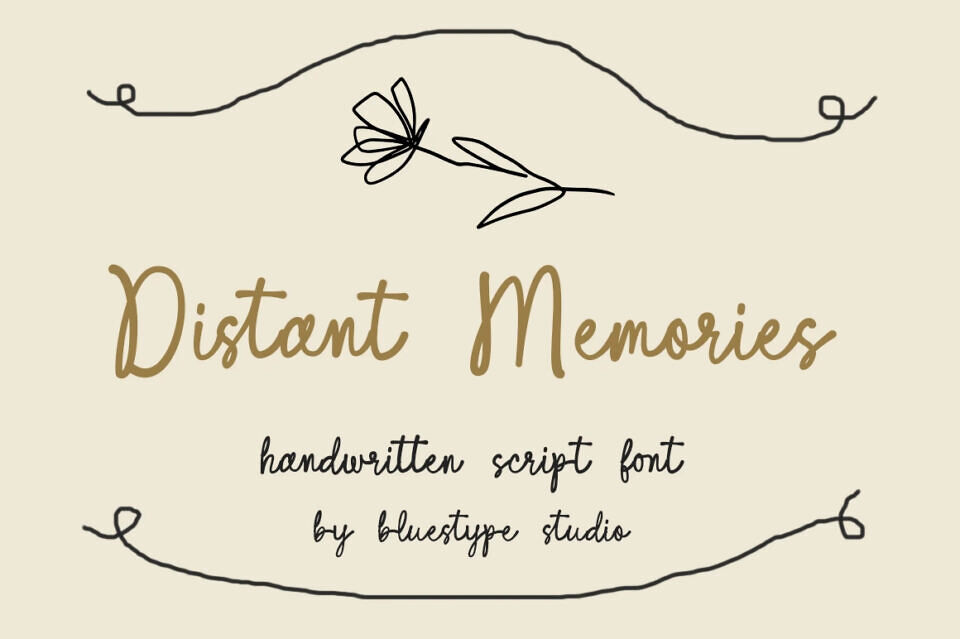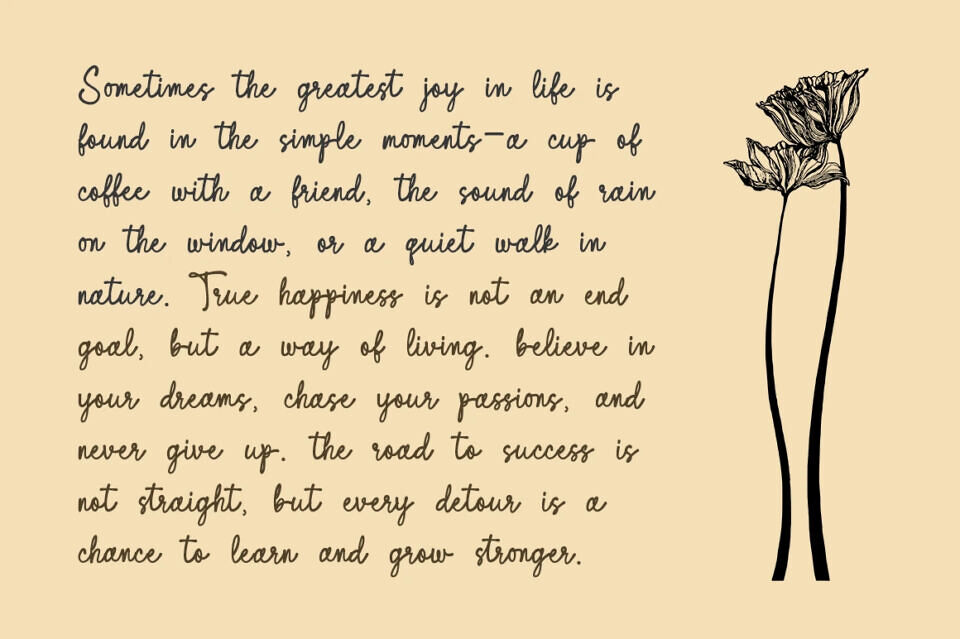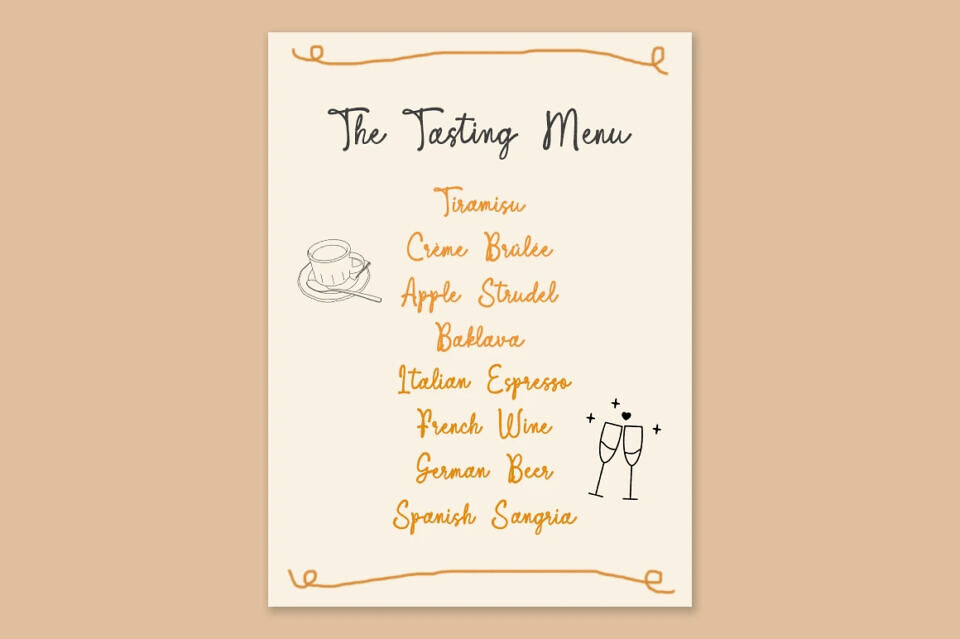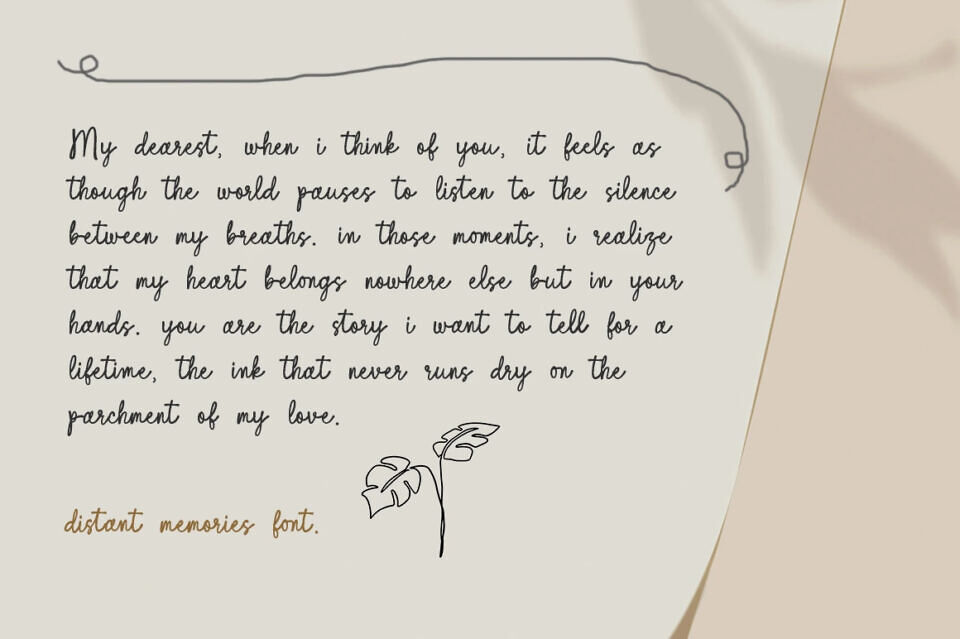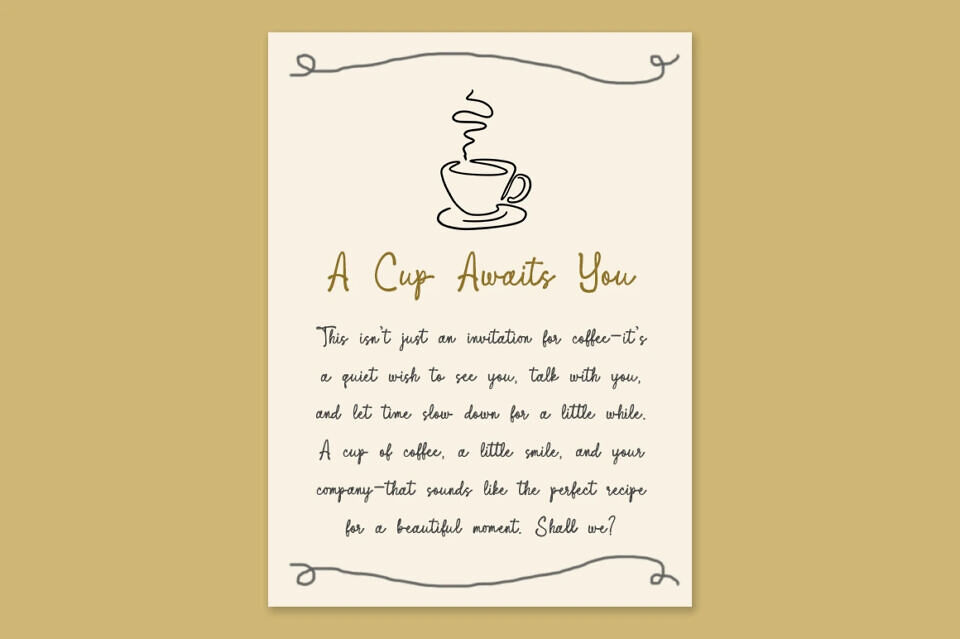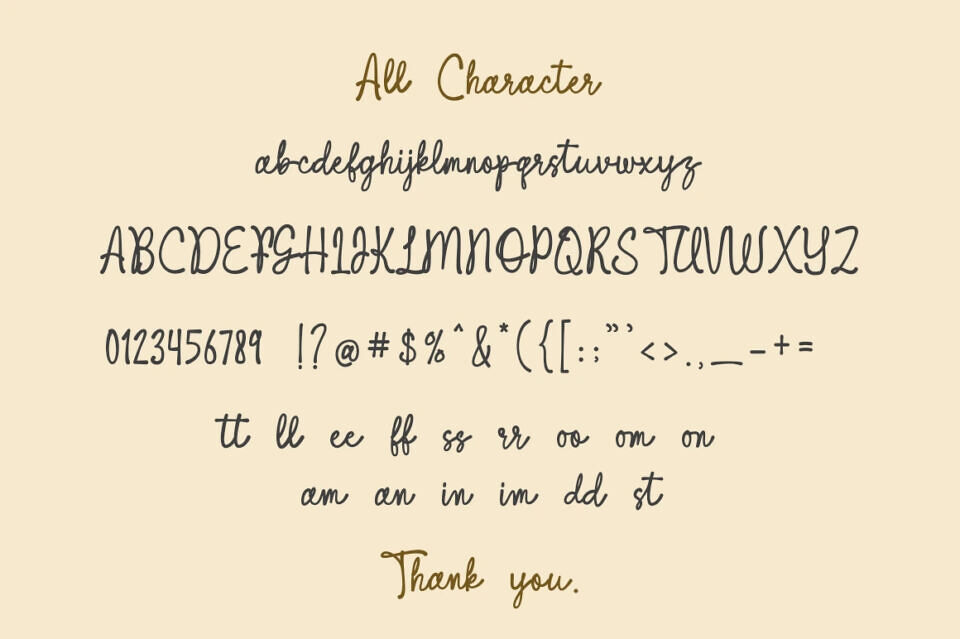
Distant Memories is an friendly handwritten script font designed to add warmth, personality, and sophistication to your designs. With smooth, flowing curves and natural strokes, it captures the charm of authentic handwriting while maintaining a modern aesthetic.
Perfect for logos, wedding invitations, branding, social media graphics, and product packaging, Distant Memories enhances both digital and print projects. Its versatile, professional design ensures readability and style, allowing creatives to achieve a heartfelt, polished finish. Ideal for projects that require a graceful, approachable, and visually captivating handwritten font.